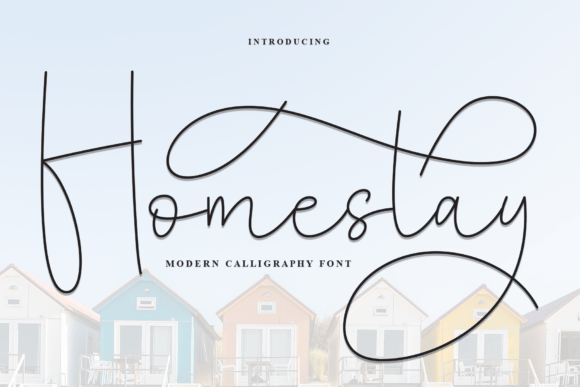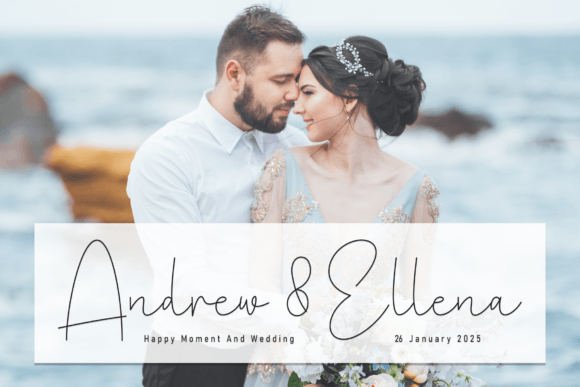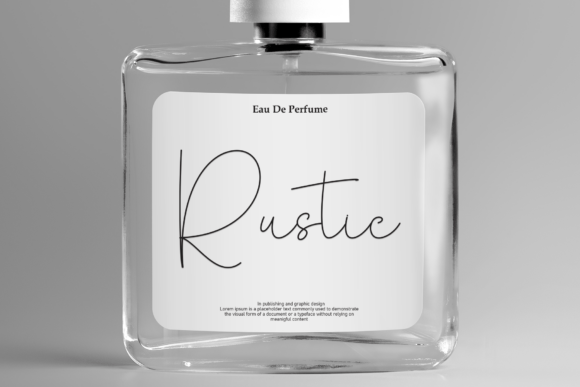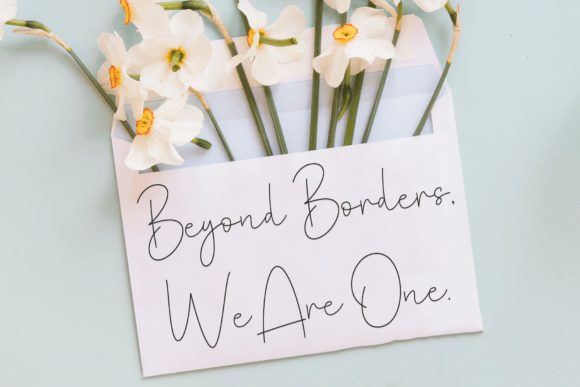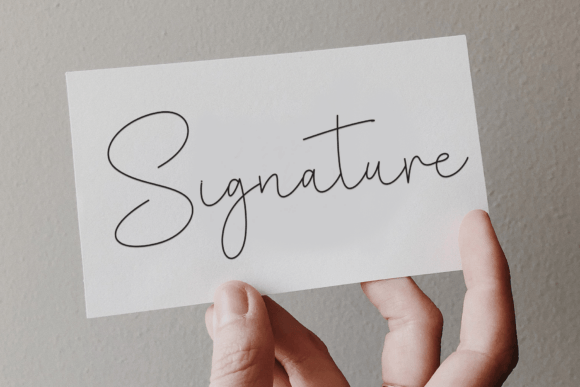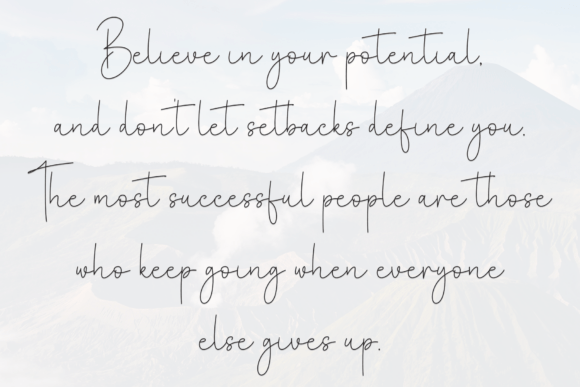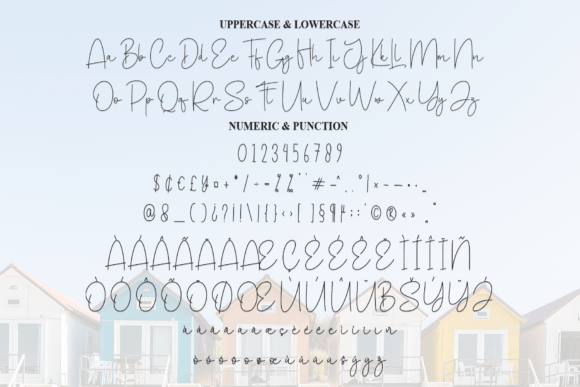
Homestay Font is a stunning handwritten script font that effortlessly combines elegance with a modern flair. Its flowing strokes and organic curves bring warmth and sophistication to any project, making it a perfect addition to branding, invitations, and social media designs. For designers, this typeface is a valuable asset, as it adds a personal, refined touch to any project with effortless charm.
Key Features of Homestay Font
- Unique Characteristics: This font features a warm and welcoming design, perfect for creating a cozy and inviting atmosphere in various design projects, including travel and hospitality websites, brochures, and advertisements.
Homestay Font Review
I recently had the chance to work with Homestay Font, and I must say, it’s a unique and intriguing typeface. Here’s my honest review:
- Homestay Font has a great balance of modern and vintage elements, making it perfect for projects that need a touch of nostalgia.
- The font’s versatility shines through in its various weights and styles, allowing designers to experiment with different combinations.
- Homestay Font’s script and display styles are particularly well-crafted, adding an extra layer of flair to any design.
- The font’s condensed forms can be a bit challenging to read at smaller font sizes, which may require some adjustments in layout.
- Some users may find the font’s unique character set to be overwhelming or difficult to work with, especially for those accustomed to more traditional typefaces.
Overall, I think Homestay Font is a solid addition to any designer’s toolkit. While it may not be perfect for every project, its unique charm and versatility make it an excellent choice for those looking to add some personality to their designs.
Getting the Most Out of Homestay Font
Experiment with different font sizes, colors, and styles to create a unique and eye-catching design. Use the Homestay Font in combination with other fonts to create a visually appealing contrast. Consider using the font in conjunction with graphics and images to create a cohesive design.
The Homestay Font is ideal for use in travel and hospitality branding, such as hotel logos, travel agency websites, and restaurant menus. It’s also suitable for use in educational institutions, particularly those with a focus on travel or cultural exchange programs.